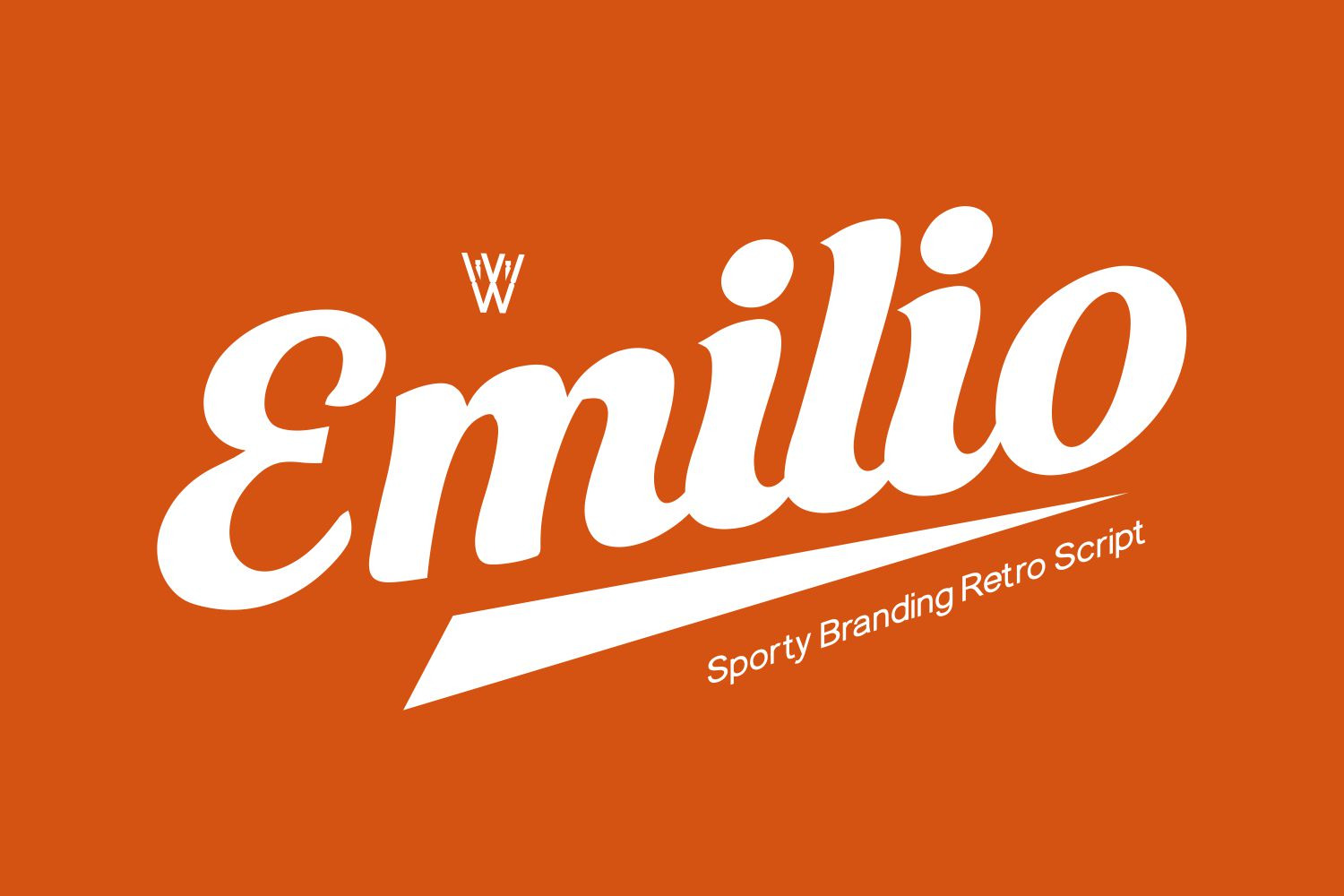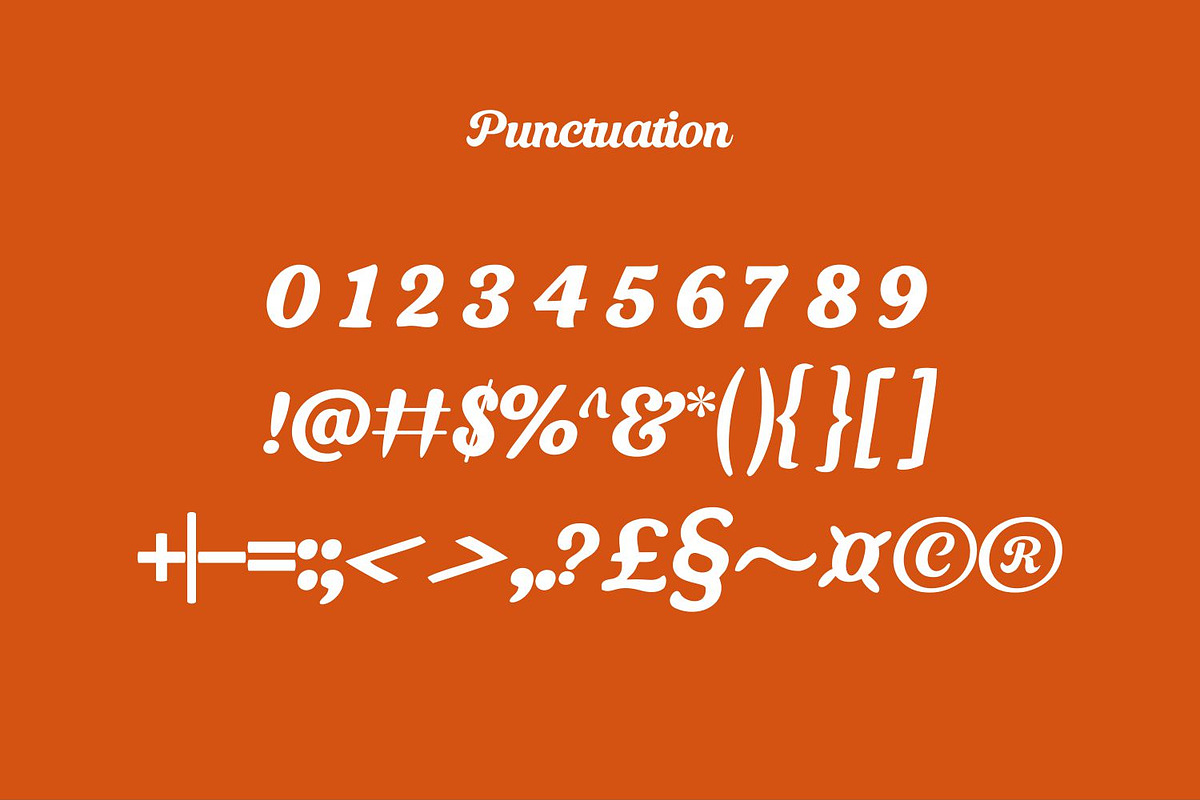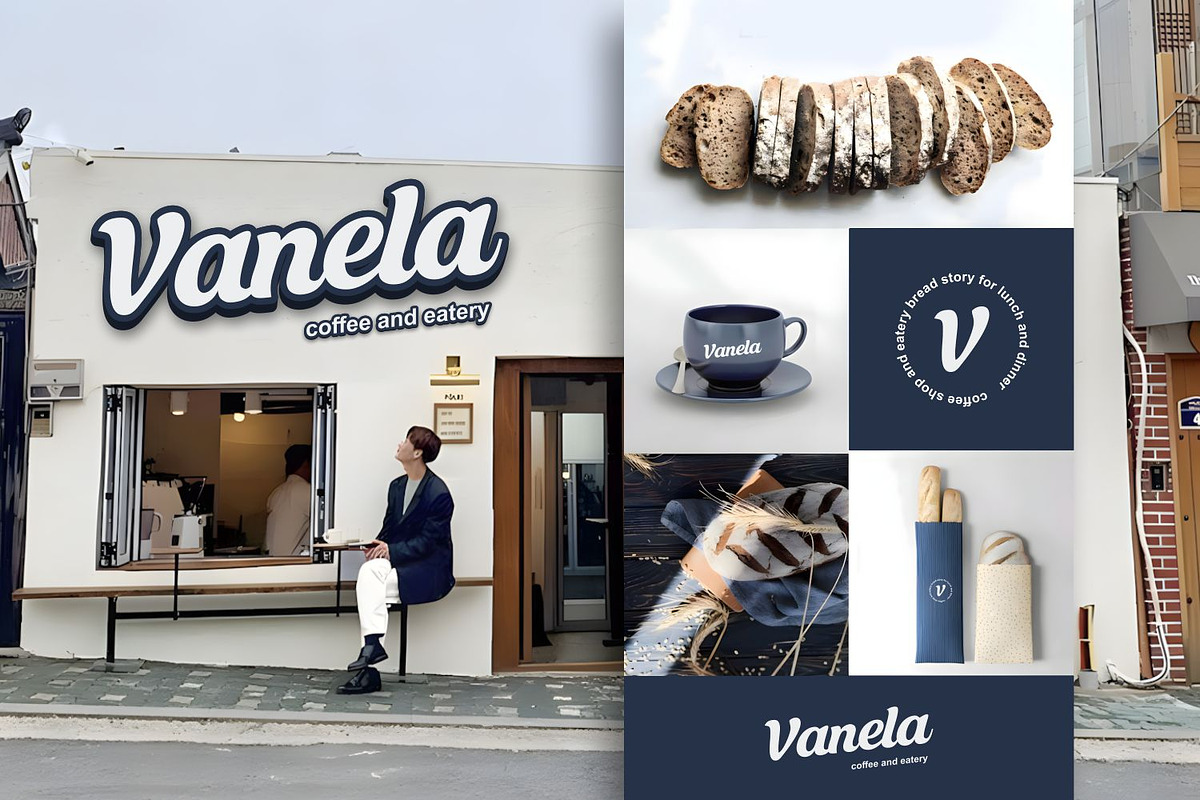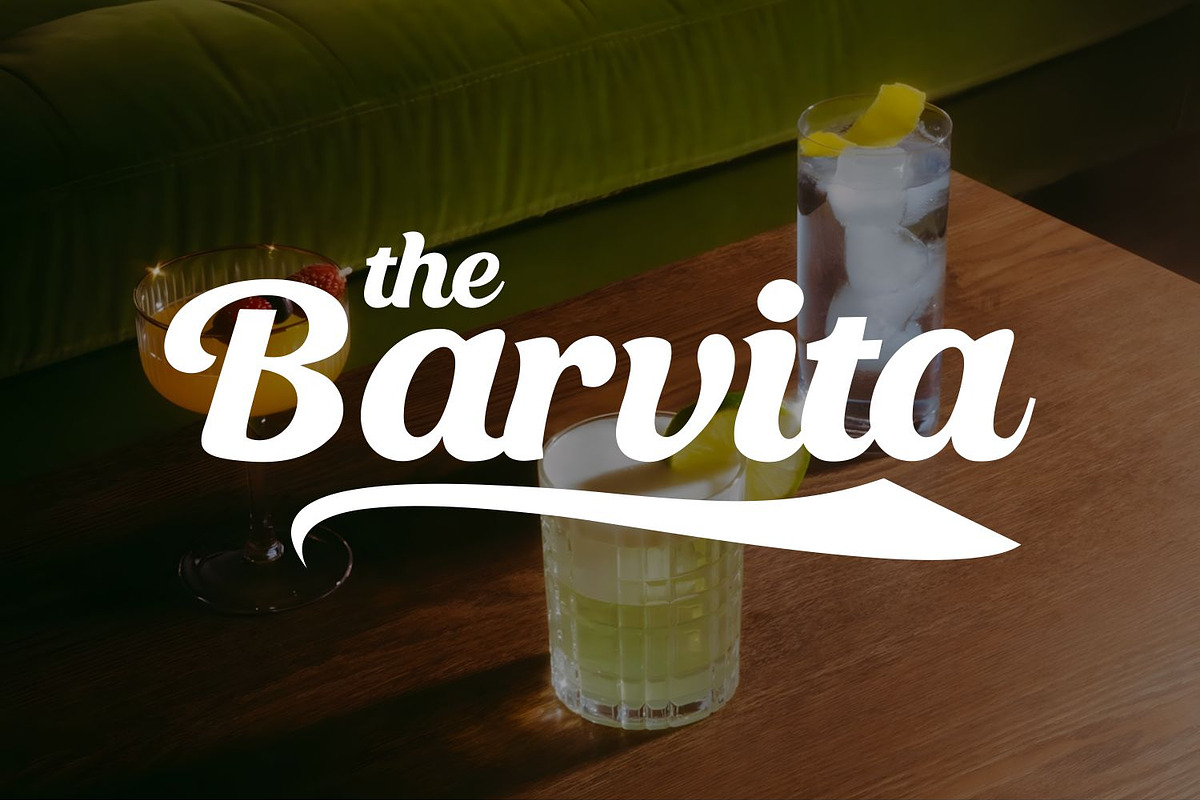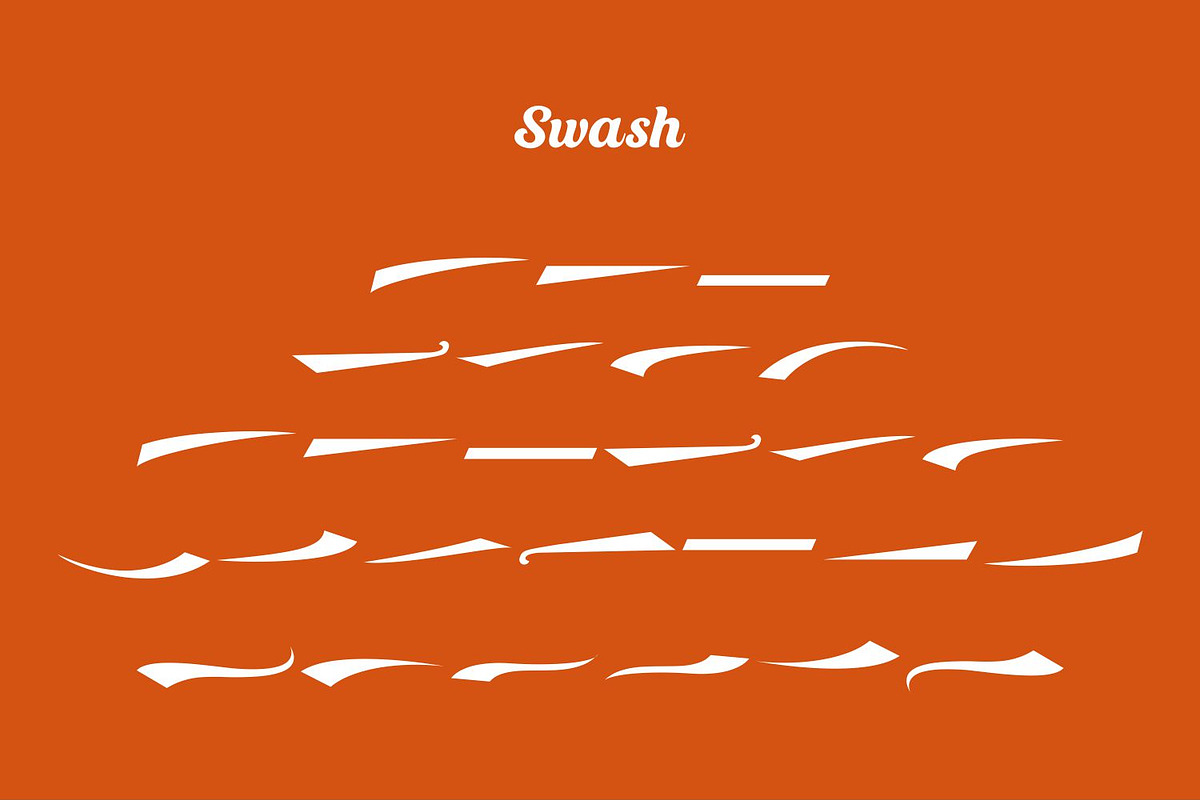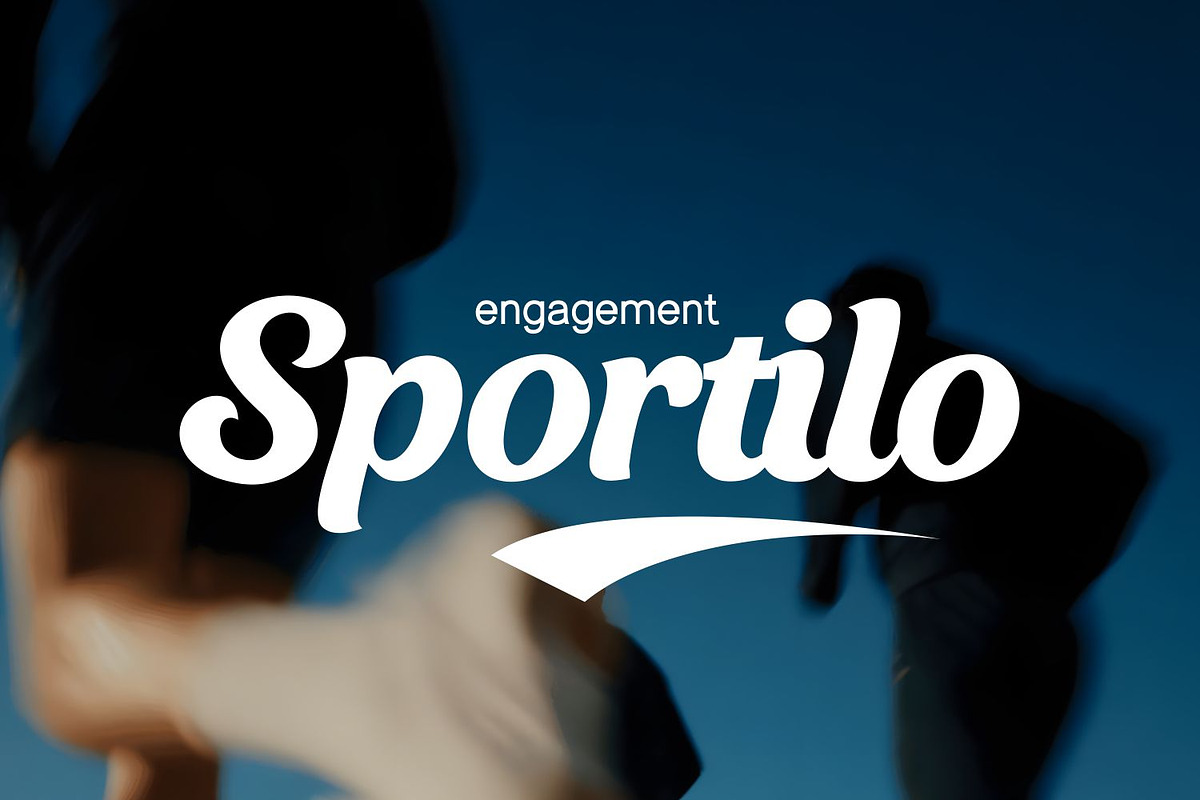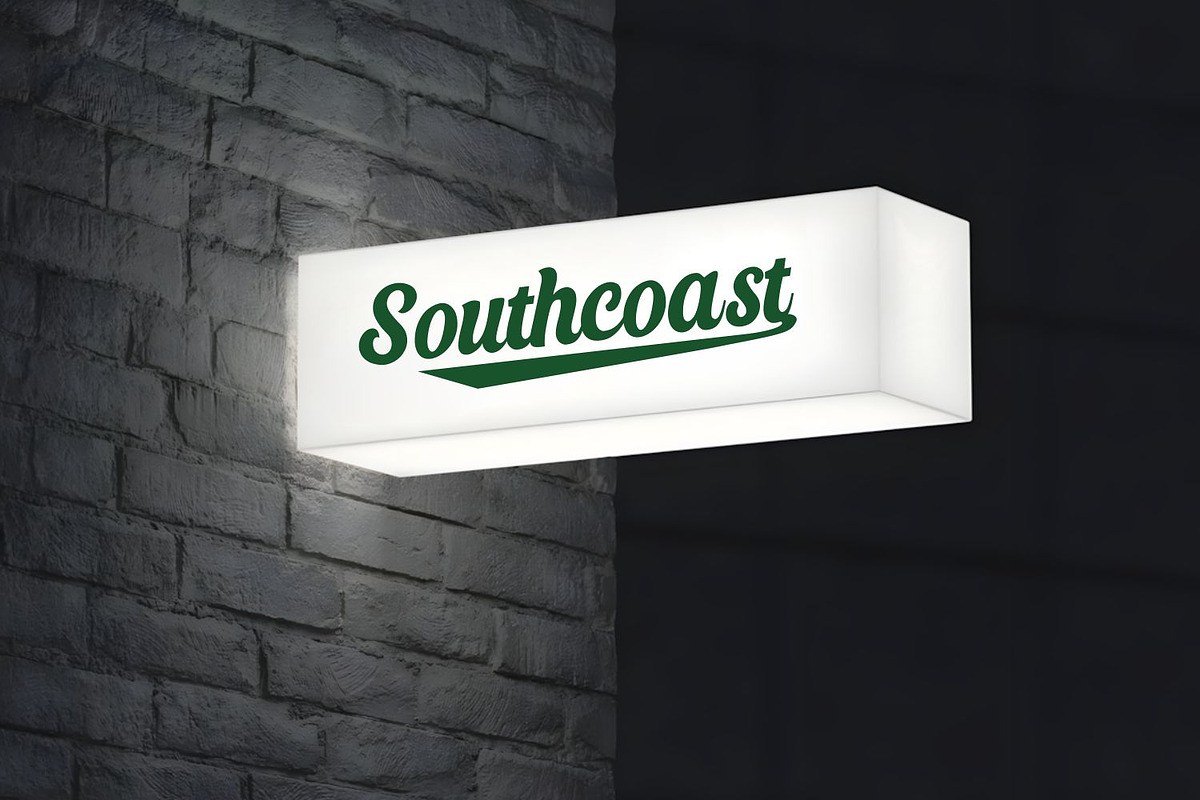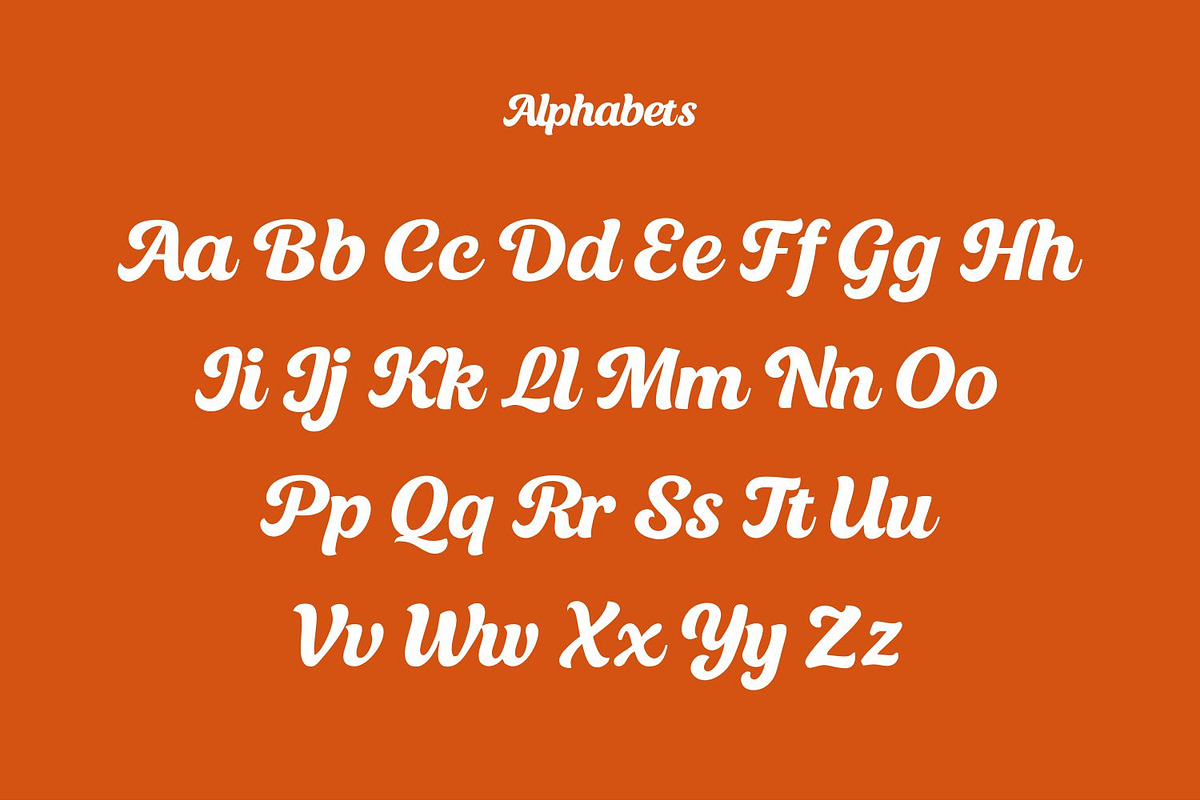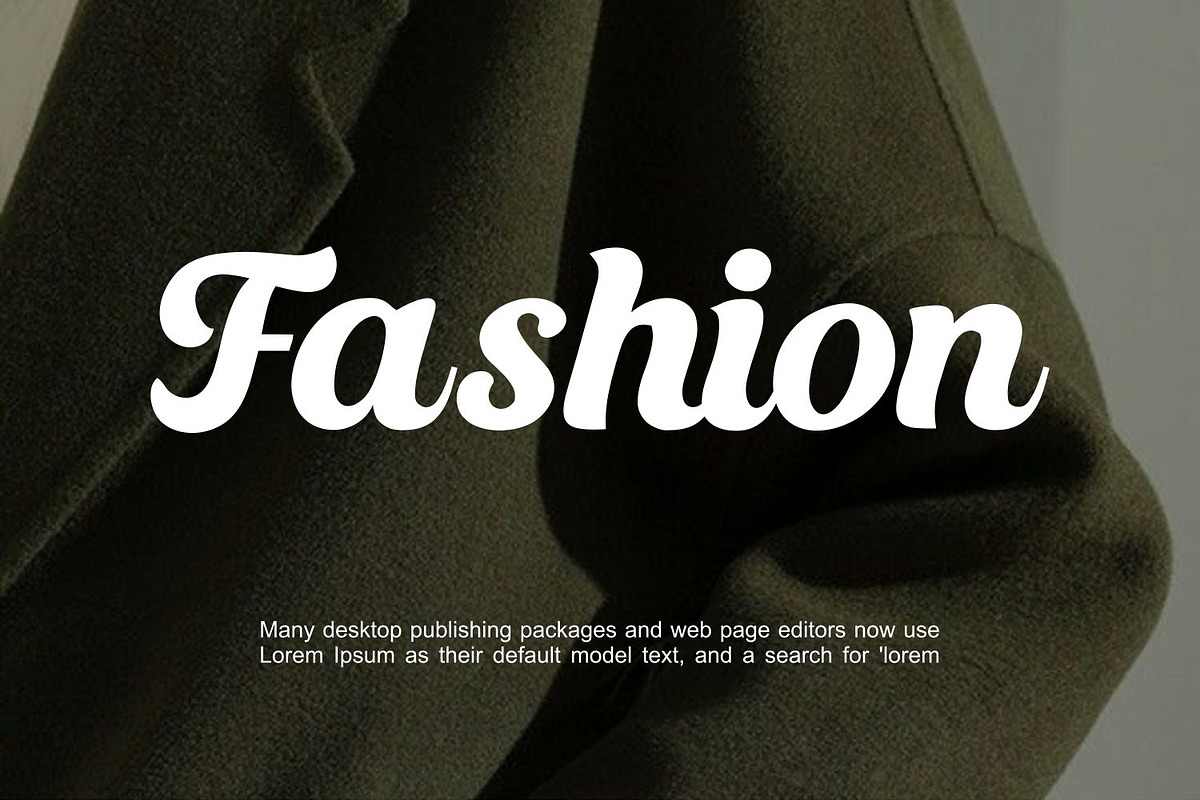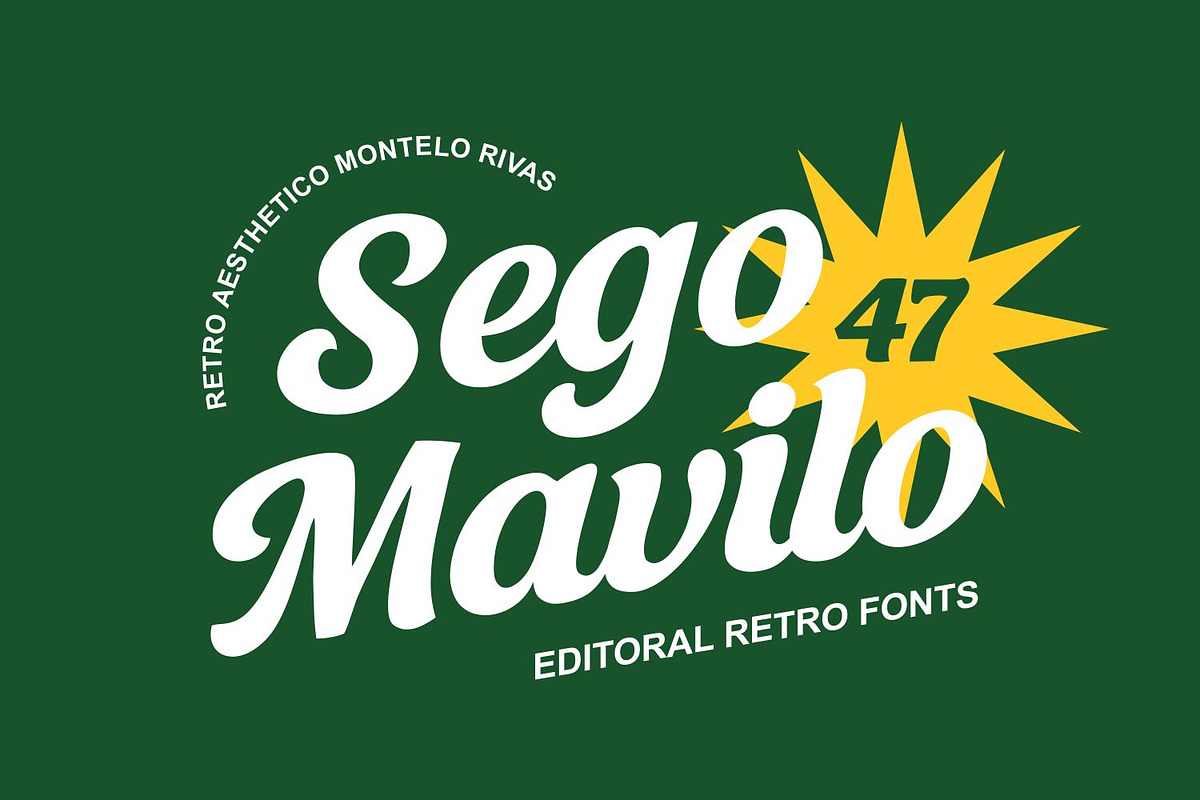
Emilio – Bold Retro Script Font
Emilio is a bold retro script font designed to bring energetic vintage character into modern branding.
Inspired by classic sports lettering, retro signage, and vintage editorial typography, Emilio features thick flowing strokes, smooth curves, and a confident handcrafted style. This font delivers a strong personality that instantly makes your designs stand out.
Its sporty retro look makes it perfect for dynamic branding, logo designs, and lifestyle projects that need a bold and nostalgic aesthetic.
Emilio works beautifully for both headline typography and logo creation, giving your designs a timeless vintage feel with a modern bold touch.
• Sports branding • Retro logos • Café & restaurant branding • Vintage posters • Apparel design • Social media graphics • Packaging design • Retro brand identity
Emilio is the perfect choice for designers who want to create bold, sporty, and vintage-inspired typography with strong visual impact.